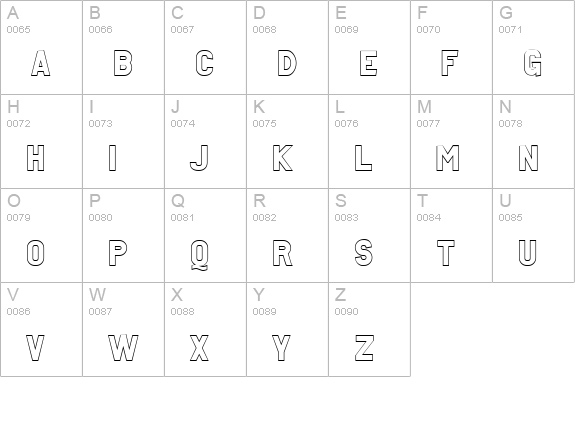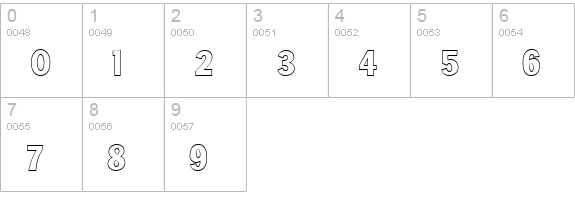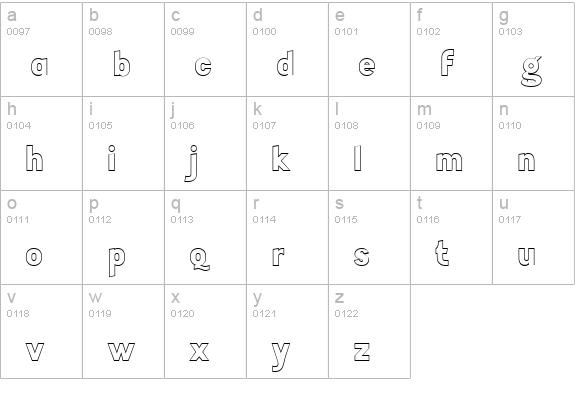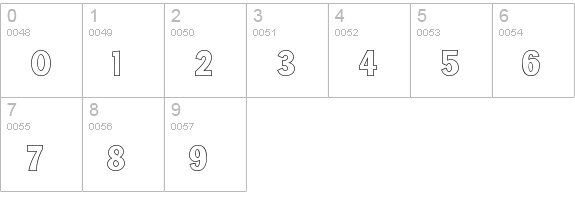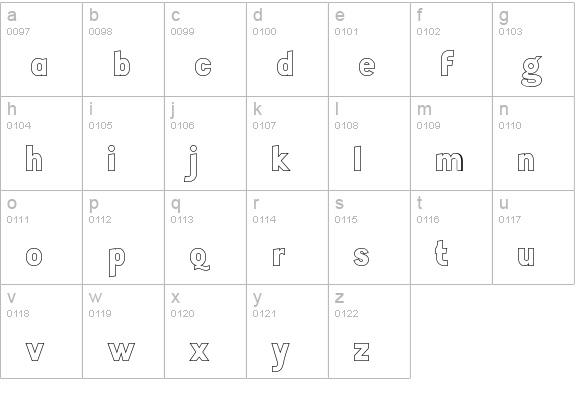
TenkoPleuelstange Font Details
TenkoPleuelstange font is a stunning display font that is sure to catch anyone's attention. With its unique and intricate design, this font adds a touch of elegance and sophistication to any project. The characters of TenkoPleuelstange font are beautifully crafted, with each letter meticulously designed to create a harmonious balance between curves and straight lines. The result is a font that is both visually pleasing and highly readable. This font is perfect for a wide range of projects, from logo designs to invitations, posters, and more. Its versatility allows it to be used in various contexts, adding a touch of professionalism and creativity to any design. What sets TenkoPleuelstange font apart is not only its exquisite design but also the fact that it is freely available to download at FontsMarket.com. This means that anyone can access and use this font without any restrictions or limitations. Whether you are a professional designer or a hobbyist, you can enjoy the benefits of this font without having to worry about any costs. So why wait? Download TenkoPleuelstange font now and elevate your designs to new heights. Let this font be the centerpiece of your next project and watch as it captivates and mesmerizes your audience. With its free availability and remarkable design, TenkoPleuelstange font is a must-have for any design enthusiast.